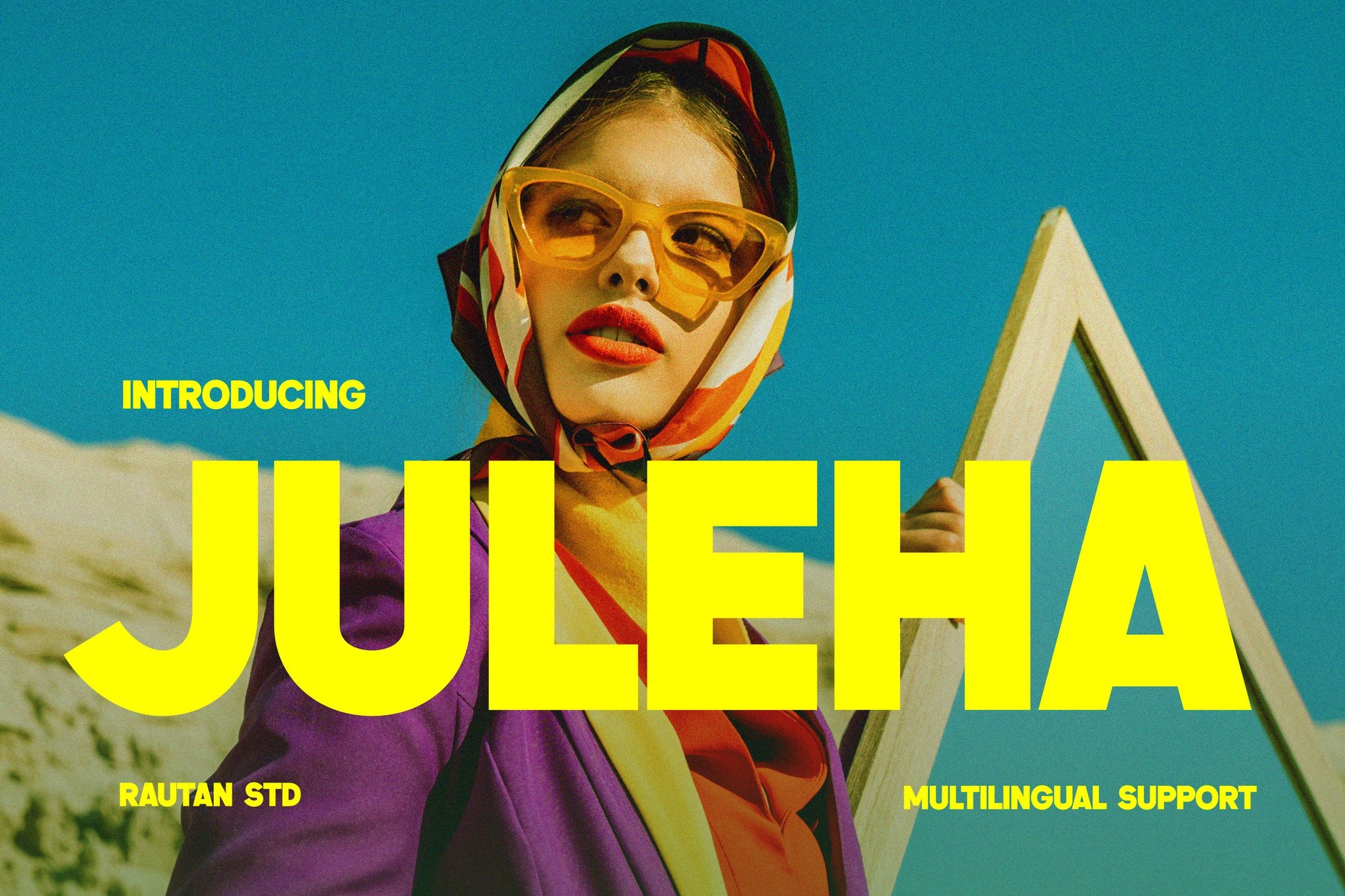
Juleha – Modern Diplay Font
Juleha – Modern Diplay Font is a bold geometric display typeface designed for modern branding, editorial layouts, and high-impact marketing visuals. Featuring thick letterforms, rounded corners, and balanced proportions, this typeface creates a clean, confident, and expressive appearance that immediately commands attention.
Its minimalist construction and bold geometric shapes provide outstanding readability while maintaining a contemporary personality. Whether used for branding, posters, social media graphics, packaging, magazine covers, advertising, or digital campaigns, Juleha delivers a strong visual identity with effortless clarity. Built with multilingual support for 67 languages, Juleha helps brands communicate consistently across international audiences without sacrificing style or readability.
In today’s fast-moving visual landscape, strong typography makes the difference between being noticed and being overlooked. Juleha is built to create powerful first impressions across branding, editorial design, product packaging, promotional graphics, websites, app UI, and digital advertising. Whether you’re launching a new brand or refreshing an existing identity, Juleha helps your message stand out with clarity, strength, and modern appeal.
Key Features :
Bold Geometric Letterforms Clean, thick shapes create strong visual hierarchy and immediate readability.
Minimal Contemporary Style Simple construction delivers a fresh, modern appearance across digital and print media.
Perfect for Modern Branding Ideal for logos, packaging, posters, editorial headlines, advertising, and social media.
Multilingual Support – 67 Languages Communicate globally with extensive language compatibility.
Highly Readable Display Design Maintains clarity even in bold headlines and large-scale compositions.
Versatile Creative Performance Suitable for branding systems, websites, app interfaces, promotional graphics, and marketing campaigns.
Basic latin A-Z and a-z
Multilingual Support (67 Languages)